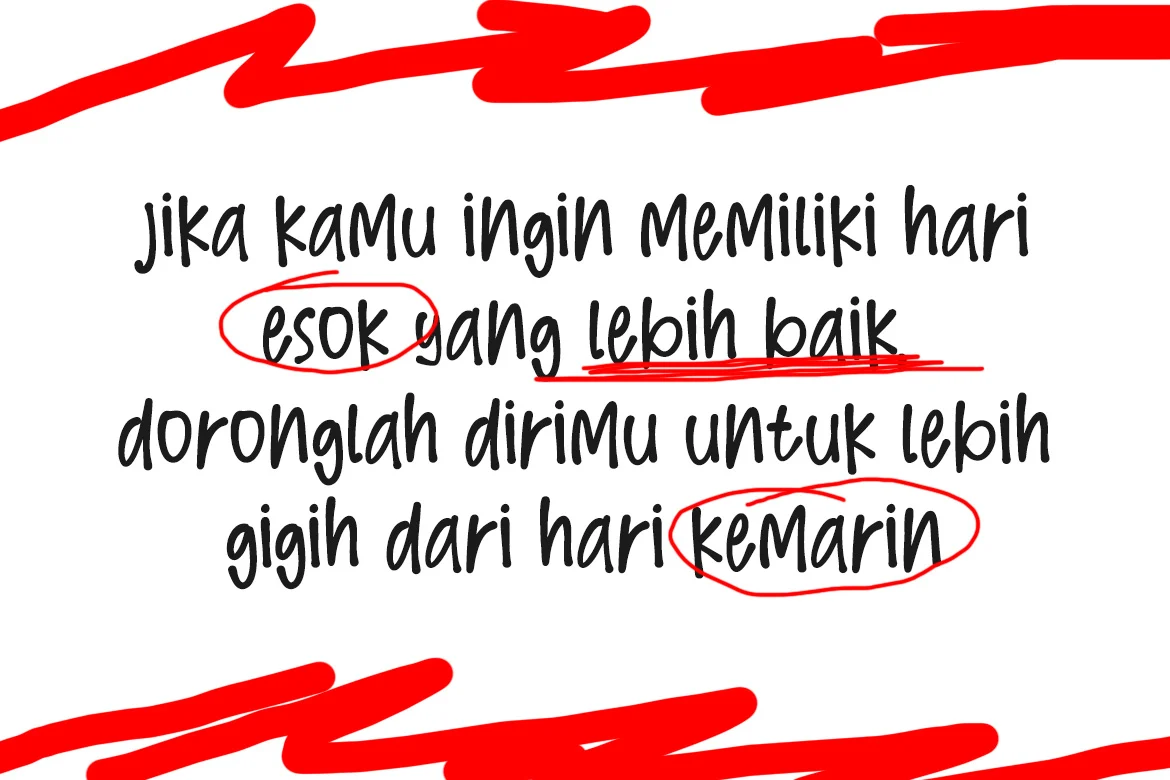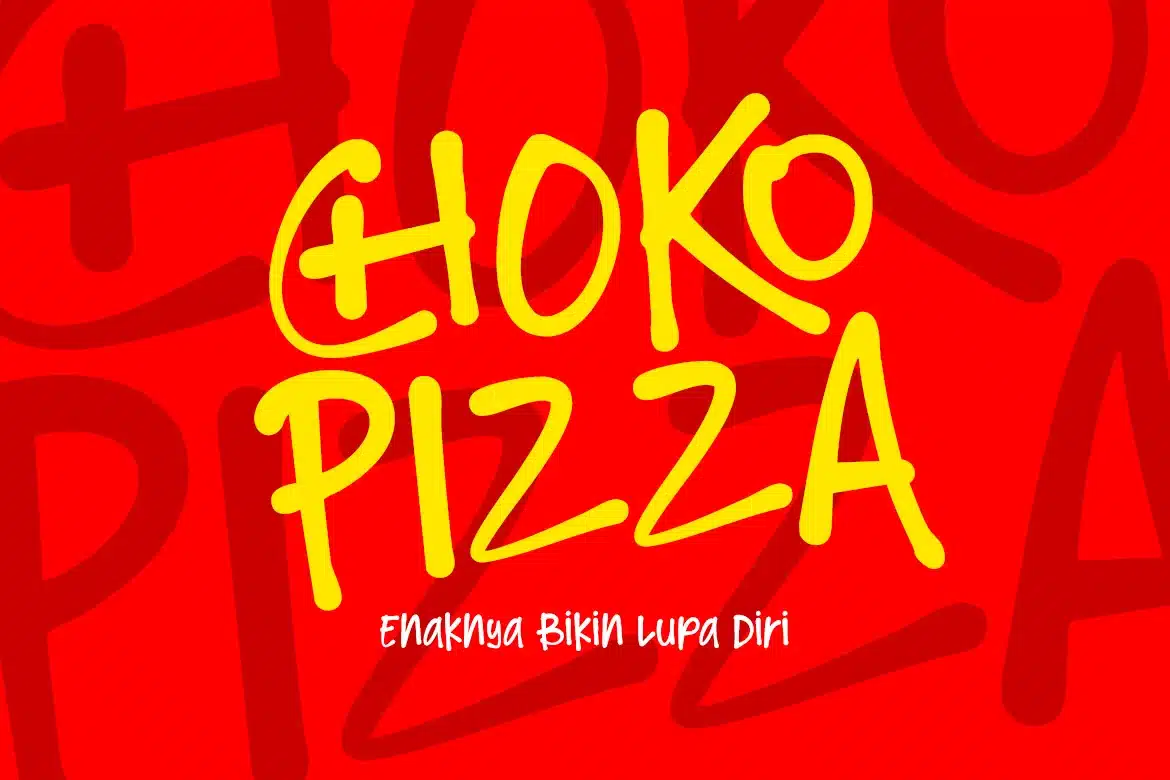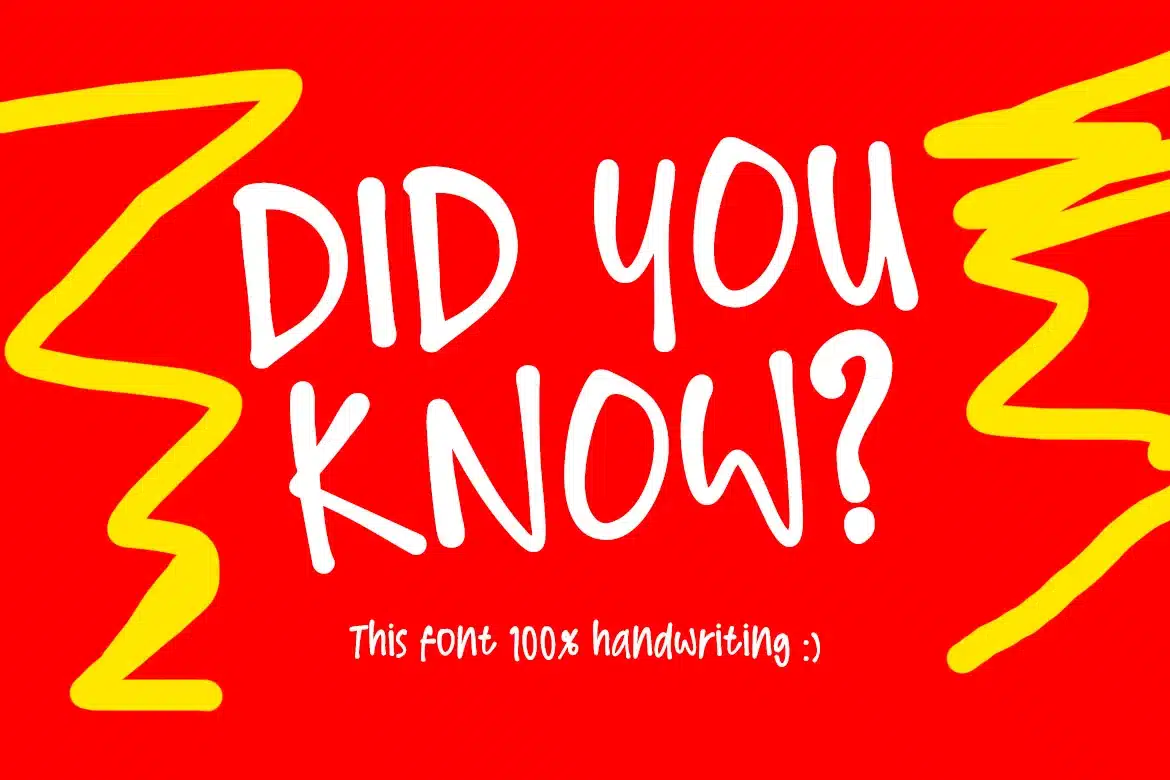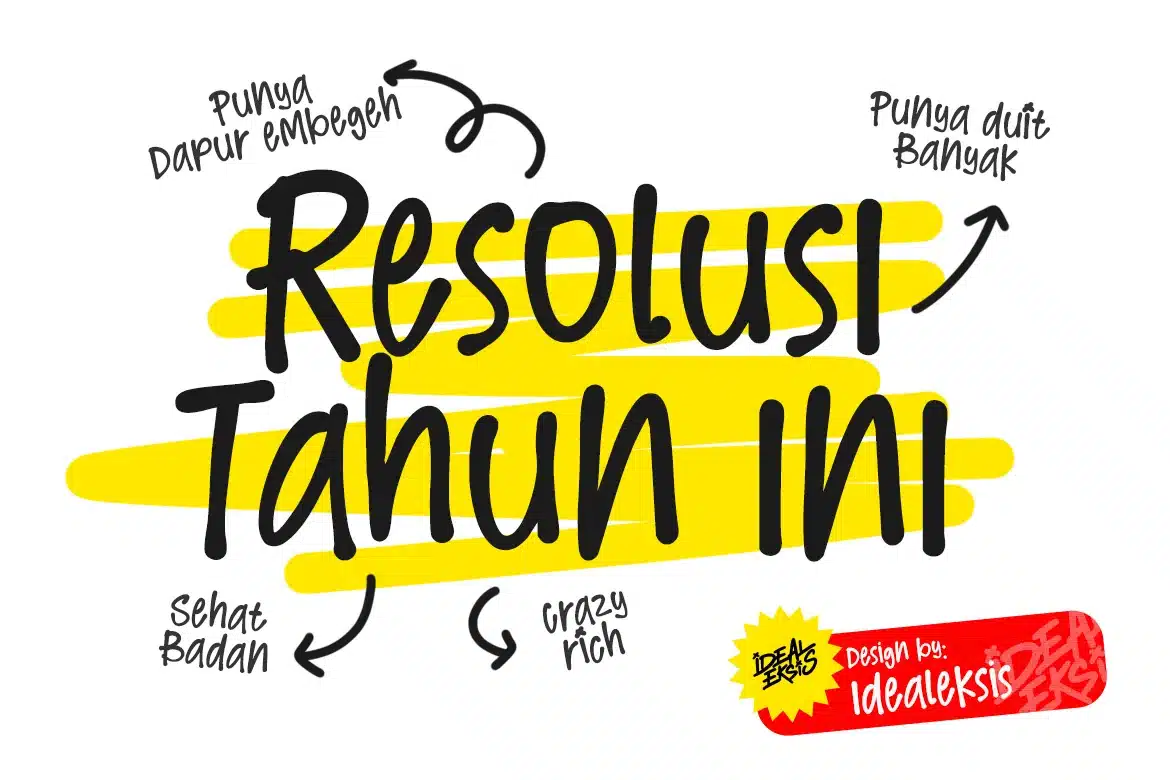
Story Notes – Notes Handwritten Font
Story Notes is a charming handwritten font that captures the essence of casual penmanship. It features rounded terminals and a uniform stroke weight that suggests the use of a marker. The letterforms are slightly bouncy and organic, providing a friendly and approachable vibe. With its clear legibility and informal structure, it is perfectly suited for creative projects like journaling, greeting cards, educational materials, and social media content where a personal touch is desired.